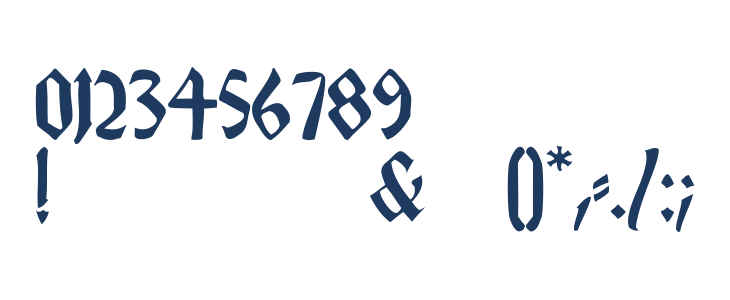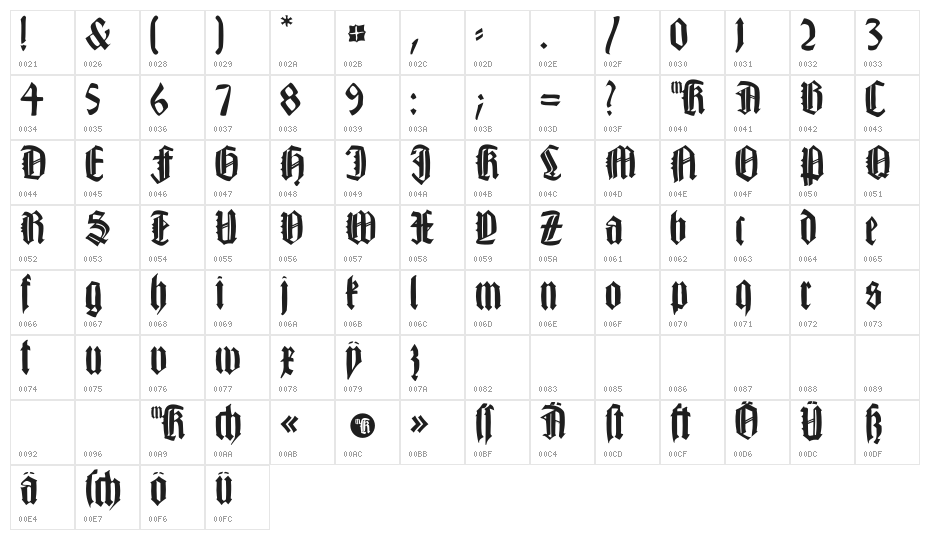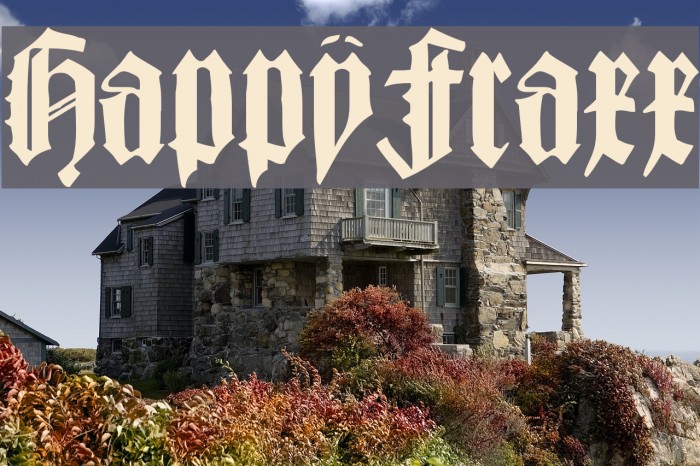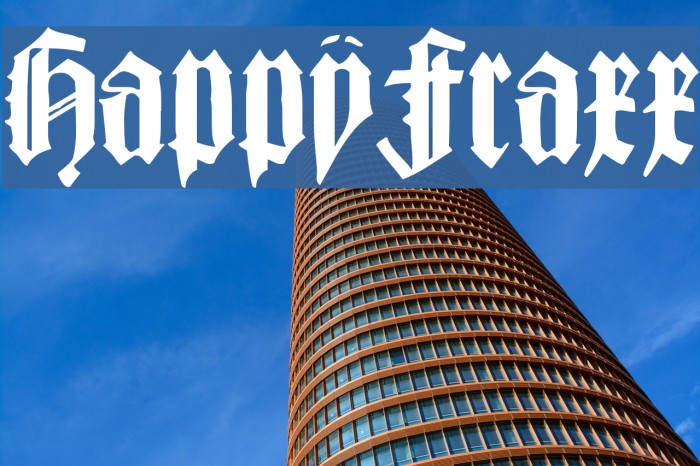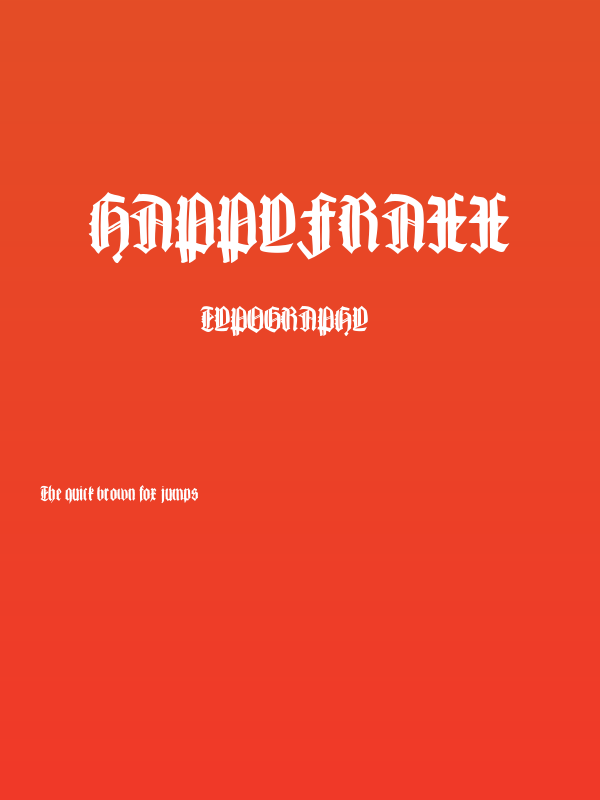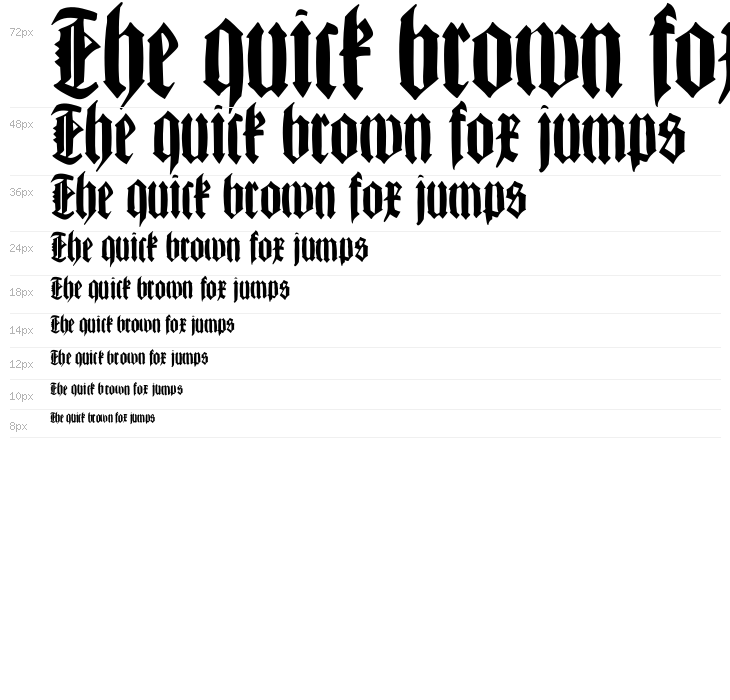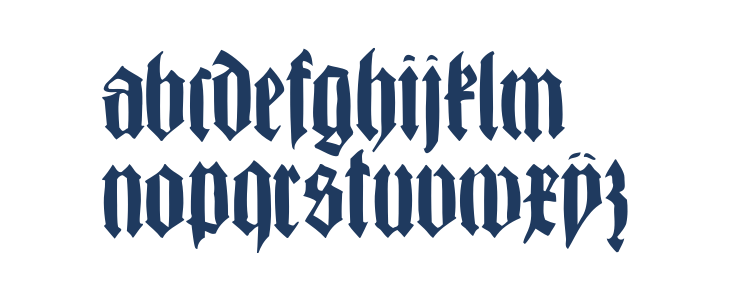
HappyFraxx Font
HappyFraxx Description
This font exhibits a bold and dramatic style, reminiscent of traditional Blackletter typefaces. The characters are characterized by their sharp, angular lines and intricate details, which give them a distinct, historical appearance. The uppercase letters are particularly ornate, with elaborate flourishes that enhance their visual impact. The lowercase letters maintain the same level of detail, ensuring consistency throughout the typeface. The numerals are designed with a similar aesthetic, featuring strong vertical and diagonal strokes. The special characters, including punctuation marks, are crafted to match the overall style, making this font suitable for projects that require a touch of elegance and tradition.
| Use Case | Headlines, Logos, Decorative |
| Proposed Projects | Ideal for use in historical or medieval-themed designs, book covers, posters, and branding that requires a classic and authoritative look. |